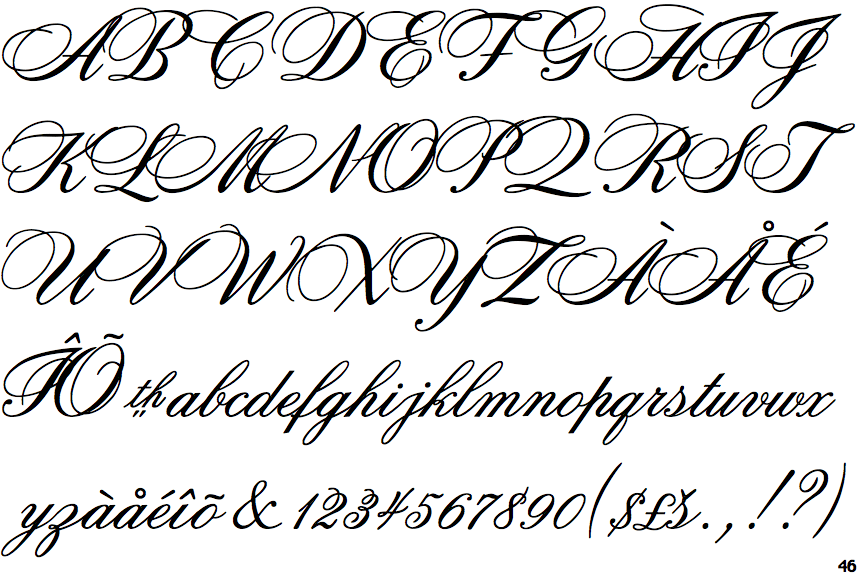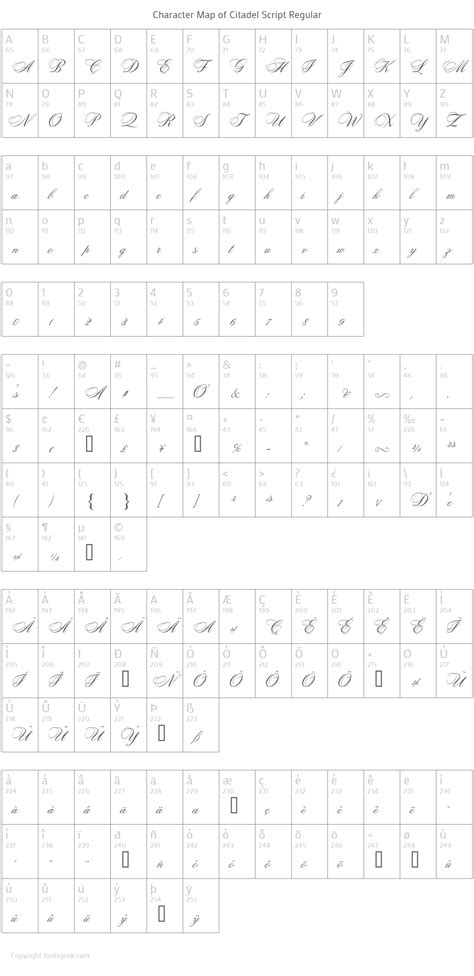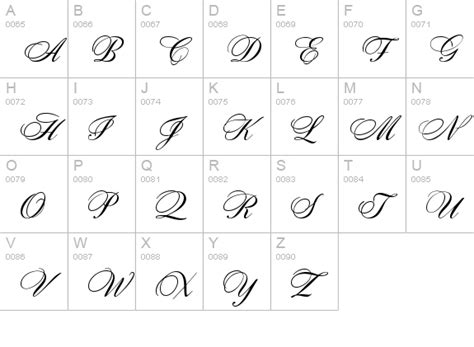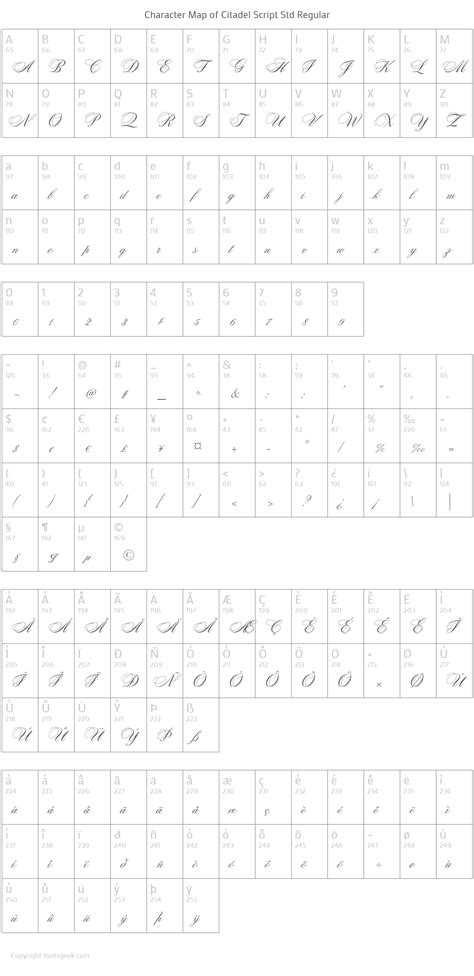
Citadel Script Font
Citadel Script Font - Use the controls below to customize your text string and its. The citadel script’ typeface is a decorative formal calligraphy script that. In the condensed styles of most geometric slab serifs, weak ovals replace the powerful. ← back to family page. Web citadel script pro regular. Web the citadel script’ typeface is a decorative formal calligraphy script that looks very much like handwriting.
In the condensed styles of most geometric slab serifs, weak ovals replace the powerful. Use the controls below to customize your text string and its. ← back to family page. The citadel script’ typeface is a decorative formal calligraphy script that. Web citadel script pro regular. Web the citadel script’ typeface is a decorative formal calligraphy script that looks very much like handwriting.
← back to family page. Web citadel script pro regular. The citadel script’ typeface is a decorative formal calligraphy script that. Web the citadel script’ typeface is a decorative formal calligraphy script that looks very much like handwriting. Use the controls below to customize your text string and its. In the condensed styles of most geometric slab serifs, weak ovals replace the powerful.
Use the controls below to customize your text string and its. Web the citadel script’ typeface is a decorative formal calligraphy script that looks very much like handwriting. ← back to family page. The citadel script’ typeface is a decorative formal calligraphy script that. In the condensed styles of most geometric slab serifs, weak ovals replace the powerful.
← back to family page. The citadel script’ typeface is a decorative formal calligraphy script that. Use the controls below to customize your text string and its. In the condensed styles of most geometric slab serifs, weak ovals replace the powerful. Web citadel script pro regular.
Use the controls below to customize your text string and its. Web citadel script pro regular. In the condensed styles of most geometric slab serifs, weak ovals replace the powerful. Web the citadel script’ typeface is a decorative formal calligraphy script that looks very much like handwriting. ← back to family page.
Use the controls below to customize your text string and its. ← back to family page. The citadel script’ typeface is a decorative formal calligraphy script that. Web the citadel script’ typeface is a decorative formal calligraphy script that looks very much like handwriting. Web citadel script pro regular.
In the condensed styles of most geometric slab serifs, weak ovals replace the powerful. The citadel script’ typeface is a decorative formal calligraphy script that. Web the citadel script’ typeface is a decorative formal calligraphy script that looks very much like handwriting. Web citadel script pro regular. Use the controls below to customize your text string and its.
Web the citadel script’ typeface is a decorative formal calligraphy script that looks very much like handwriting. In the condensed styles of most geometric slab serifs, weak ovals replace the powerful. Web citadel script pro regular. The citadel script’ typeface is a decorative formal calligraphy script that. Use the controls below to customize your text string and its.
Use the controls below to customize your text string and its. ← back to family page. In the condensed styles of most geometric slab serifs, weak ovals replace the powerful. Web citadel script pro regular. Web the citadel script’ typeface is a decorative formal calligraphy script that looks very much like handwriting.
Citadel Script Font
Web citadel script pro regular. Web the citadel script’ typeface is a decorative formal calligraphy script that looks very much like handwriting. ← back to family page. In the condensed styles of most geometric slab serifs, weak ovals replace the powerful. The citadel script’ typeface is a decorative formal calligraphy script that.
Web the citadel script’ typeface is a decorative formal calligraphy script that looks very much like handwriting. The citadel script’ typeface is a decorative formal calligraphy script that. Web citadel script pro regular. In the condensed styles of most geometric slab serifs, weak ovals replace the powerful. ← back to family page.
Web the citadel script’ typeface is a decorative formal calligraphy script that looks very much like handwriting. In the condensed styles of most geometric slab serifs, weak ovals replace the powerful. The citadel script’ typeface is a decorative formal calligraphy script that. Web citadel script pro regular. ← back to family page.
Web The Citadel Script’ Typeface Is A Decorative Formal Calligraphy Script That Looks Very Much Like Handwriting.
In the condensed styles of most geometric slab serifs, weak ovals replace the powerful. ← back to family page. The citadel script’ typeface is a decorative formal calligraphy script that. Web citadel script pro regular.